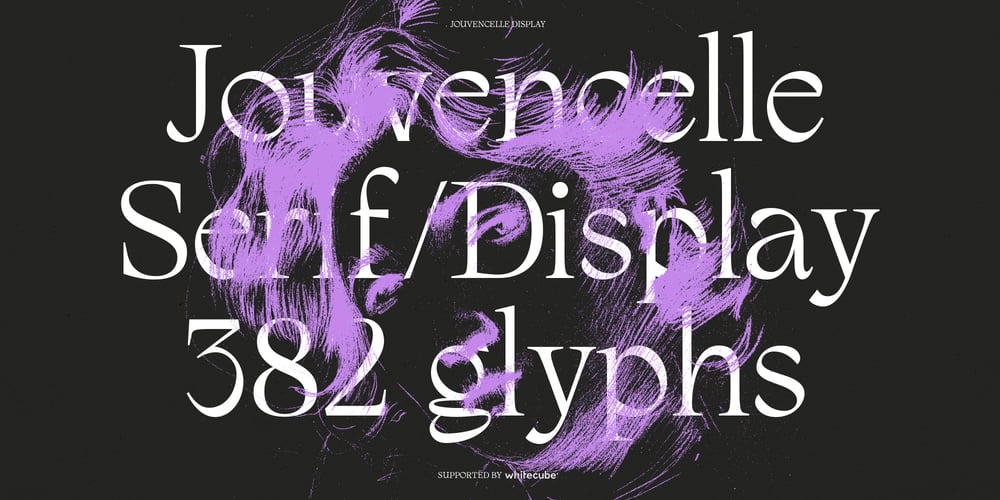
Jouvencelle
Jouvencelle font
Jouvencelle Font Family was designed by Guillaume Henry and published by Whitecube. Jouvencelle contains 1 styles and family package options. Jouvencelle is a contemporary version of classic 18th-century typographic elegance, distinguished by its dynamic lines of force and the heterogeneous design of some of its typefaces. Its personality is expressed by its graphic richness, its whimsical harmony and the finesse of its strokes, making it ideal for large format, titling or textile printing. This unique, sophisticated and versatile serif family of 382 glyphs and 17 ligatures is perfect for branding projects, logos, apparel, packaging, magazine headlines, advertising, T-shirts, postcards and more.